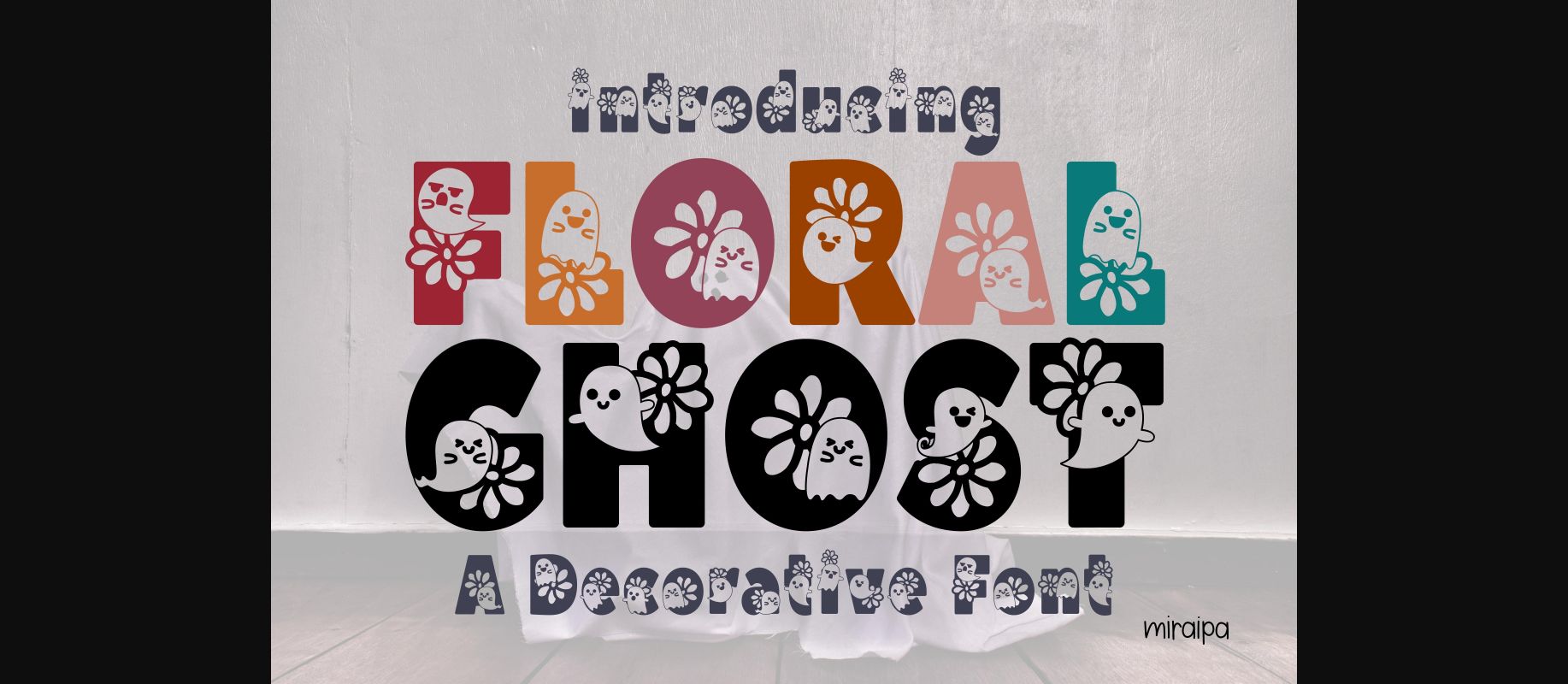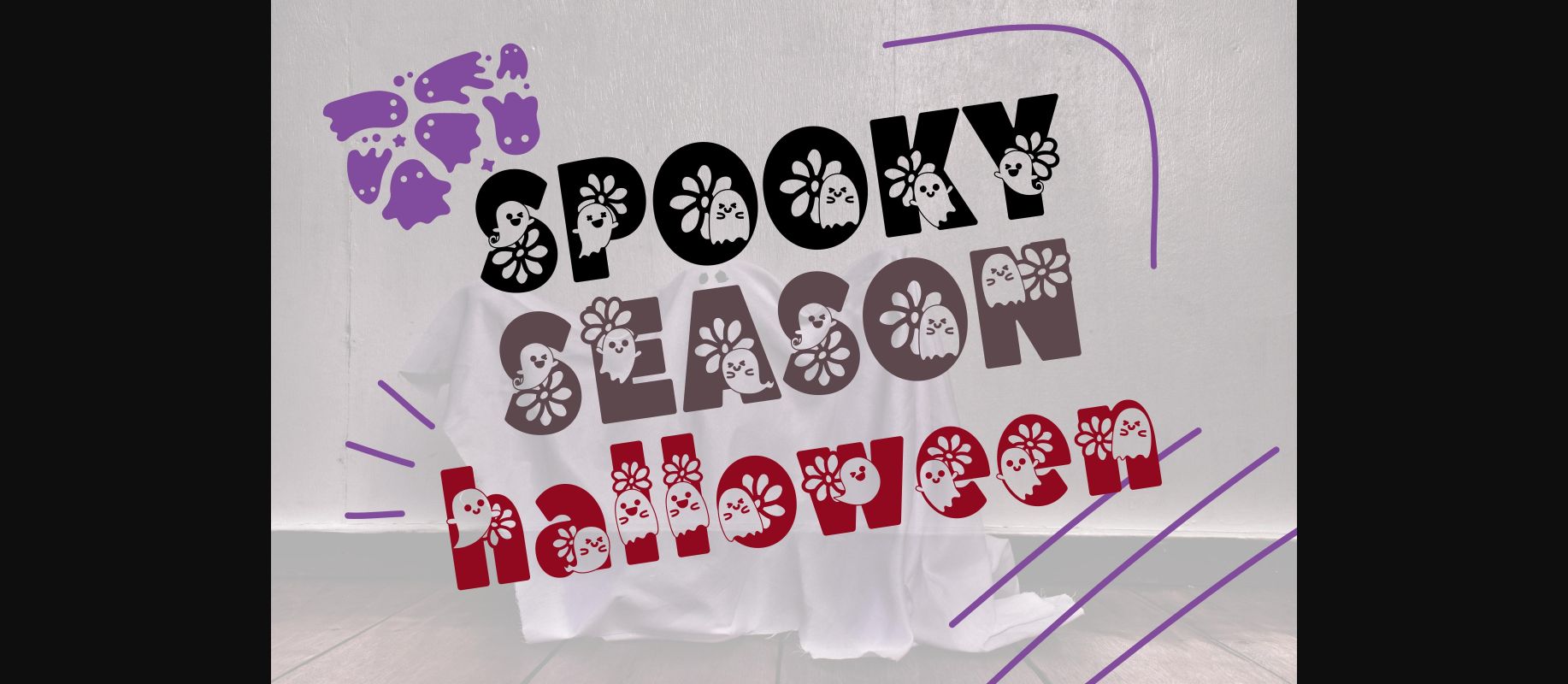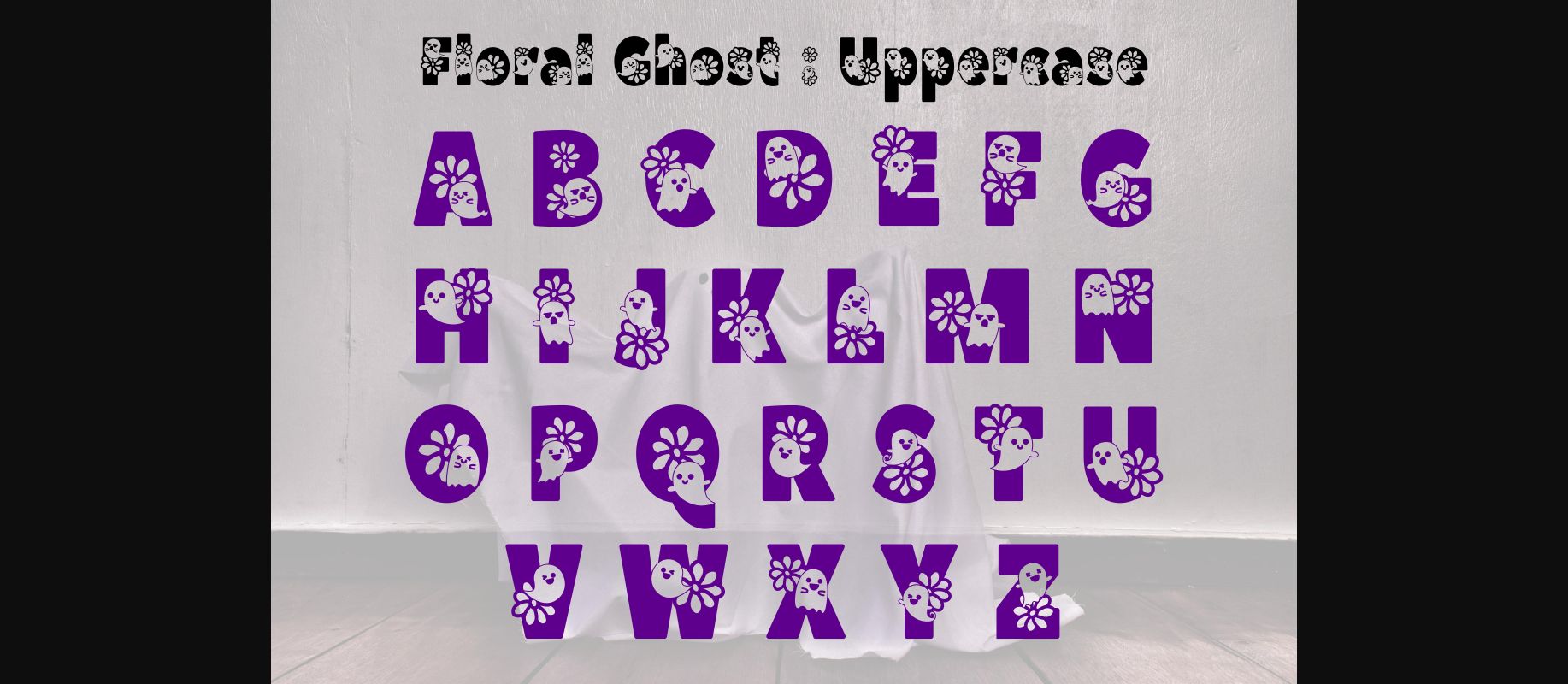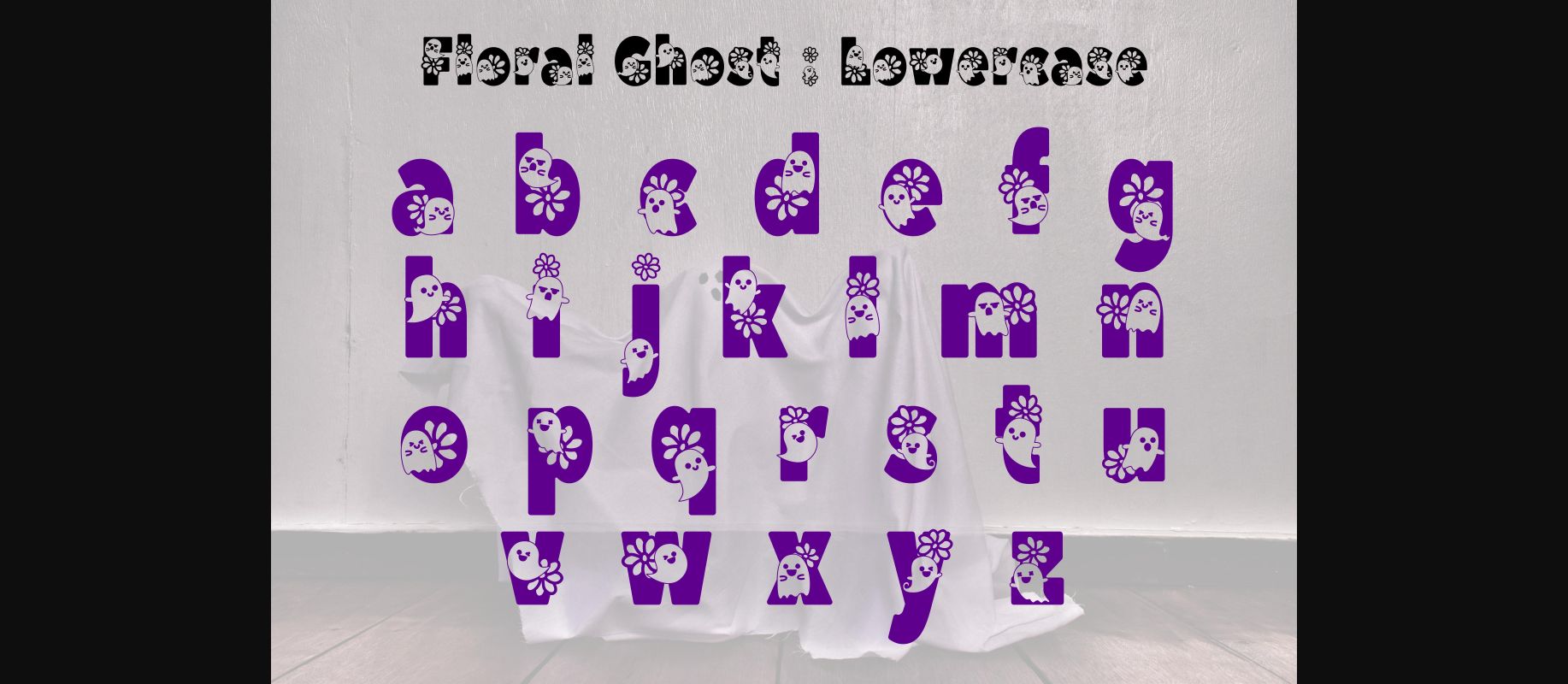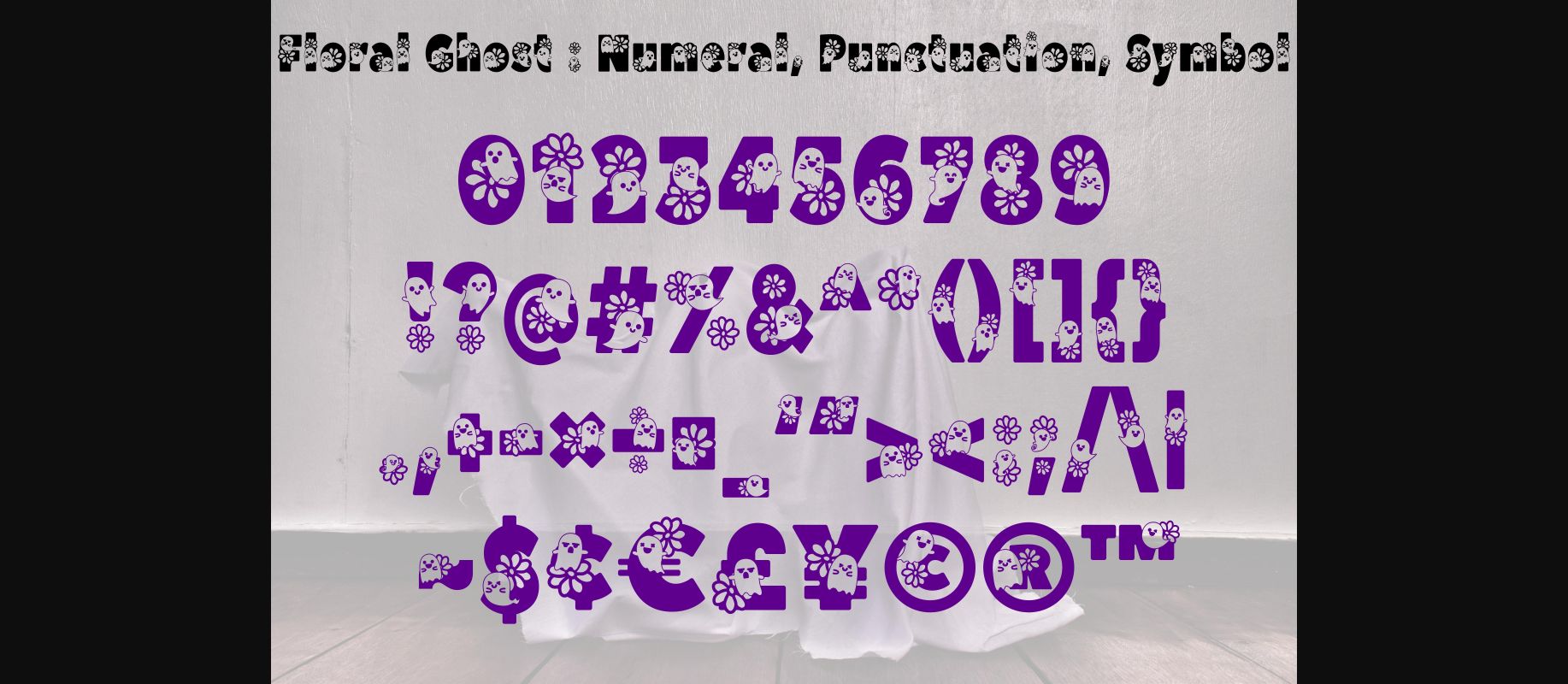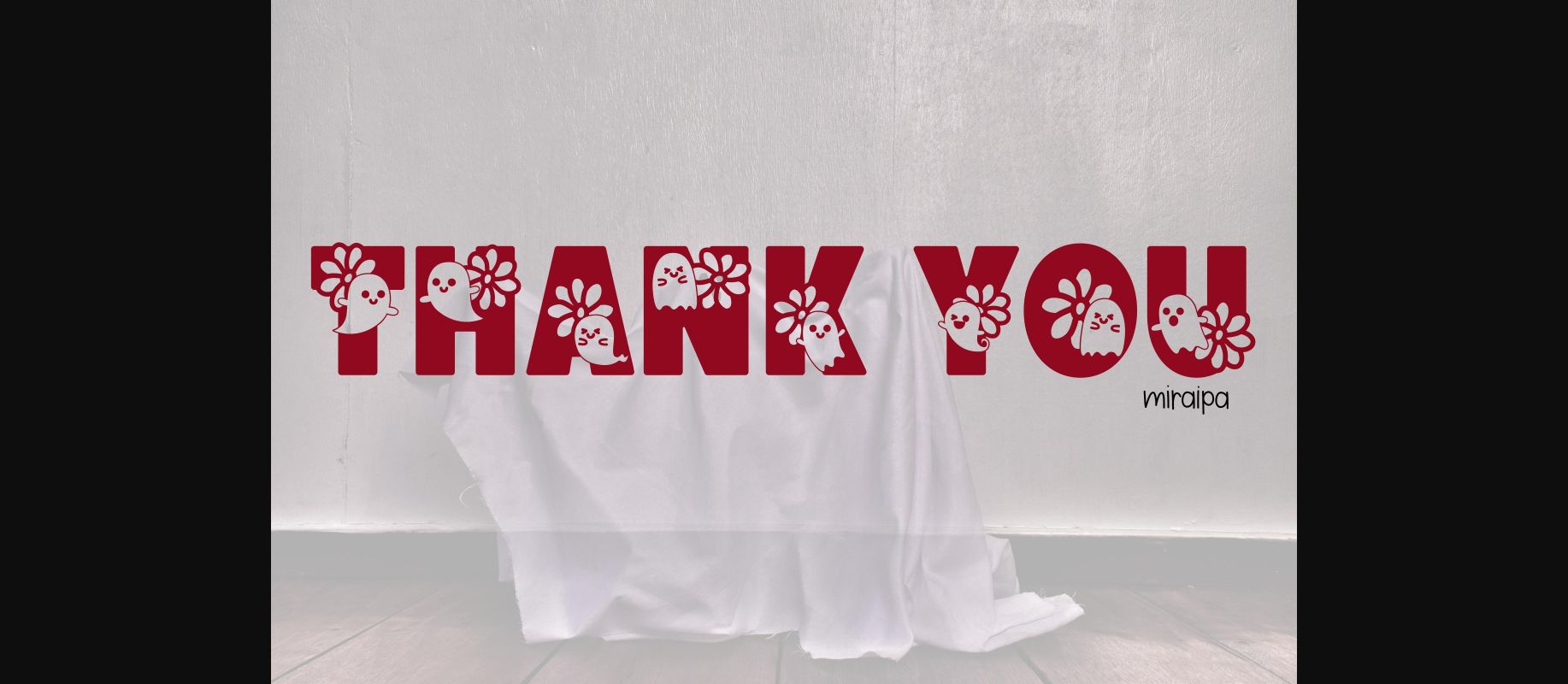
HomeDecorative FontsFloral Ghost Font Decorative Fonts Floral Ghost Font FacebookXPinterestWhatsApp 1 of 8 ... Floral Ghost Font Poster 2... Floral Ghost Font Poster 3... Floral Ghost Font Poster 4... Floral Ghost Font Poster 5... Floral Ghost Font Poster 6... Floral Ghost Font Poster 7... Floral Ghost Font Poster 8... About Floral Ghost Font Floral Ghost is a cute and adorable decorative font. Whimsical and a bit spooky, this font is perfect for all your Halloween-related projects. DOWNLOAD NOW People also explored Violence Font Ayesha Burns Font Honey and Friends Font Prokopioss Font Sweet Holiday Font Remington Font Miracle Nighty Font Ayunda Font Dallem Signature Font 322 0 TagsFloral Ghost Font Previous articleCute Ghost FontNext articleHantu Monogram Font LEAVE A REPLY Cancel reply Comment: Please enter your comment! Name:* Please enter your name here Email:* You have entered an incorrect email address! Please enter your email address here Website: Save my name, email, and website in this browser for the next time I comment. Personal Use Free Thruster Personal Use Free Read more about this font Time for Presents Personal Use Free Read more about this font Unispace Personal Use Free Read more about this font Open Heart Personal Use Free Read more about this font BLOG Exploring Font Trends Shaping Communication in the Digital Era Fonts, like all design elements, are subject to trends. They play a crucial role in communicating a brand's personality,... Best Fonts for T-Shirt Design – Top 2025 Picks Free vs Paid Fonts: Why Investing in Premium Fonts Is Worth It Modern Sans-Serif Fonts That Brands Love in 2025